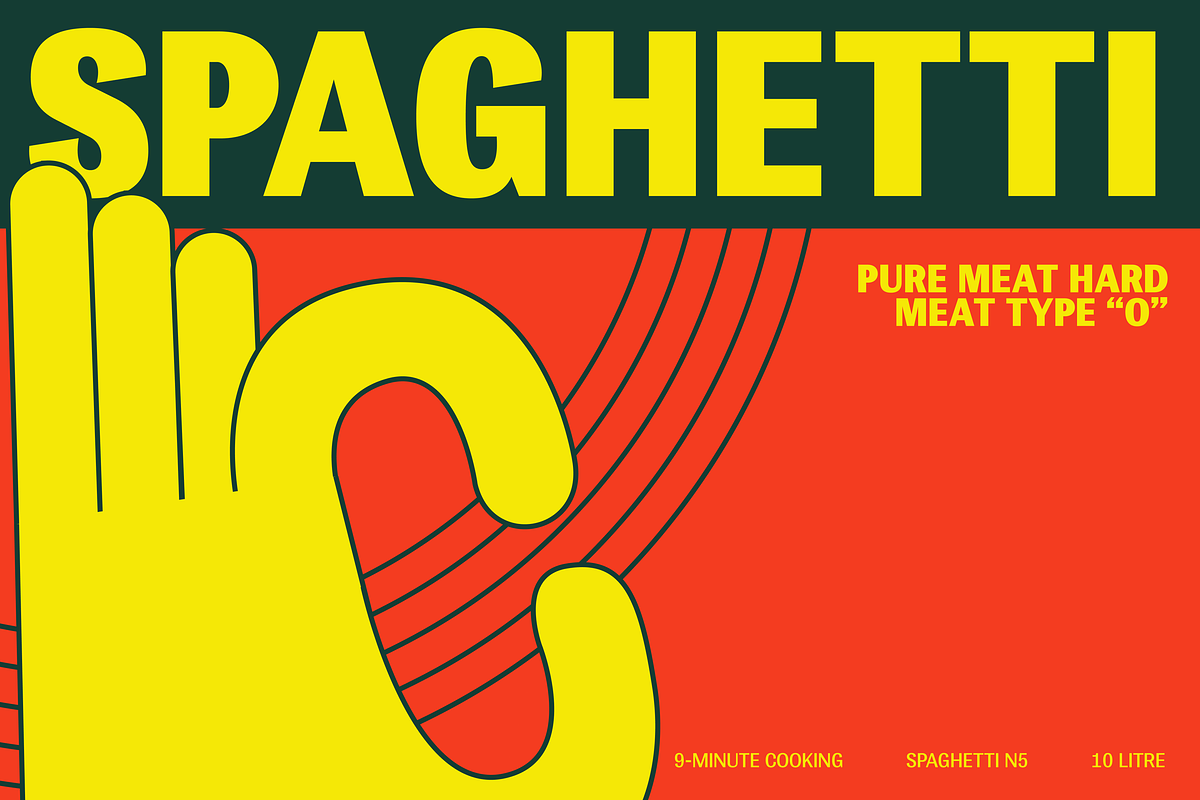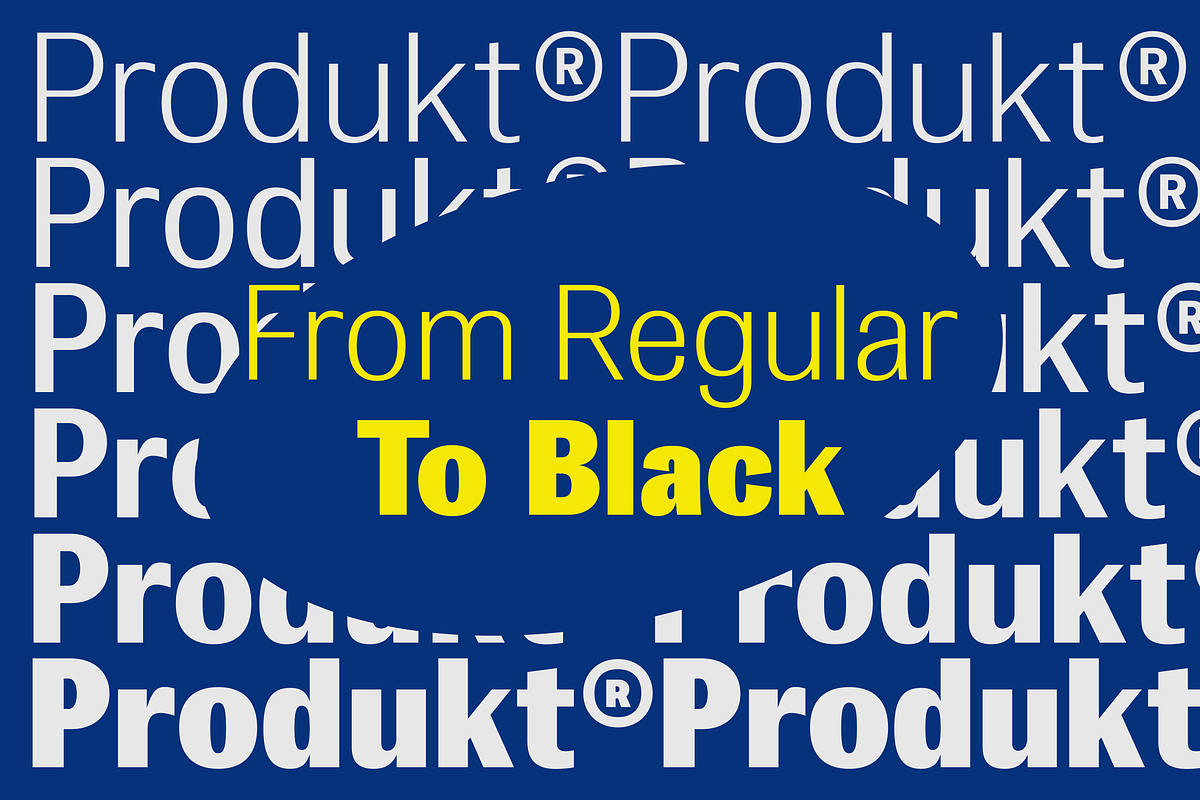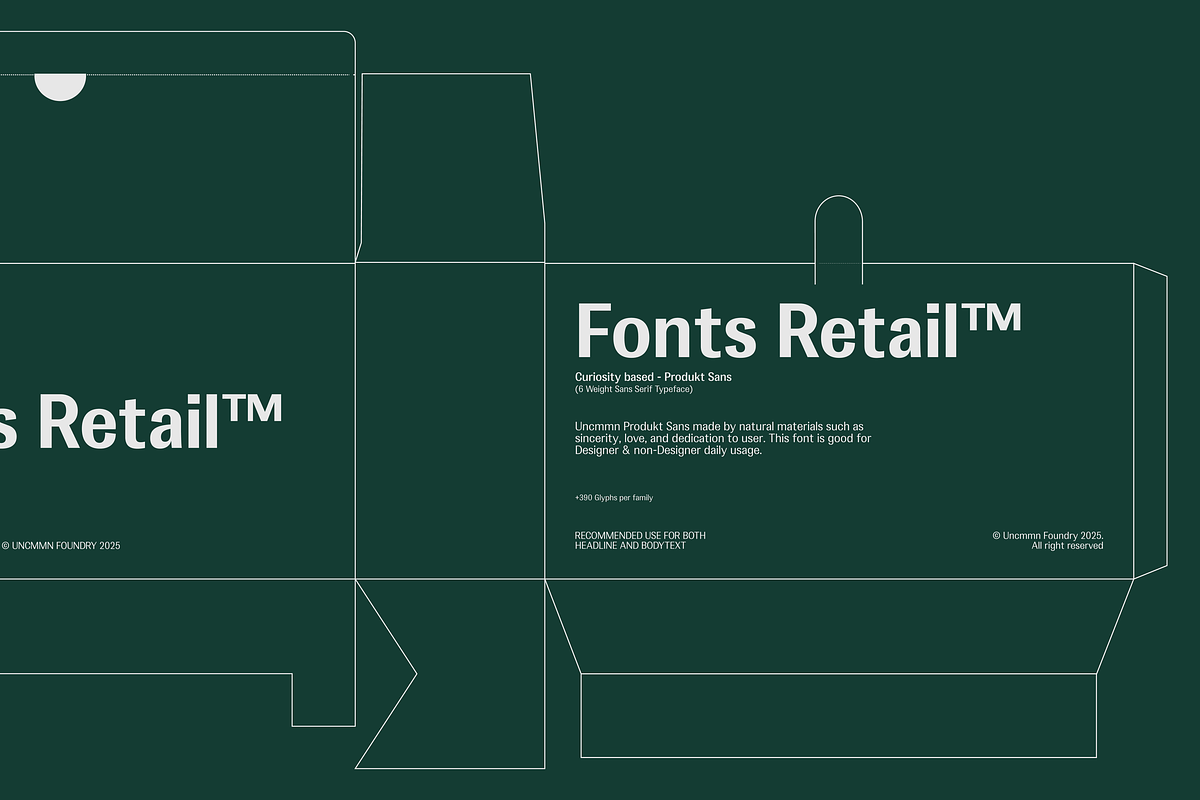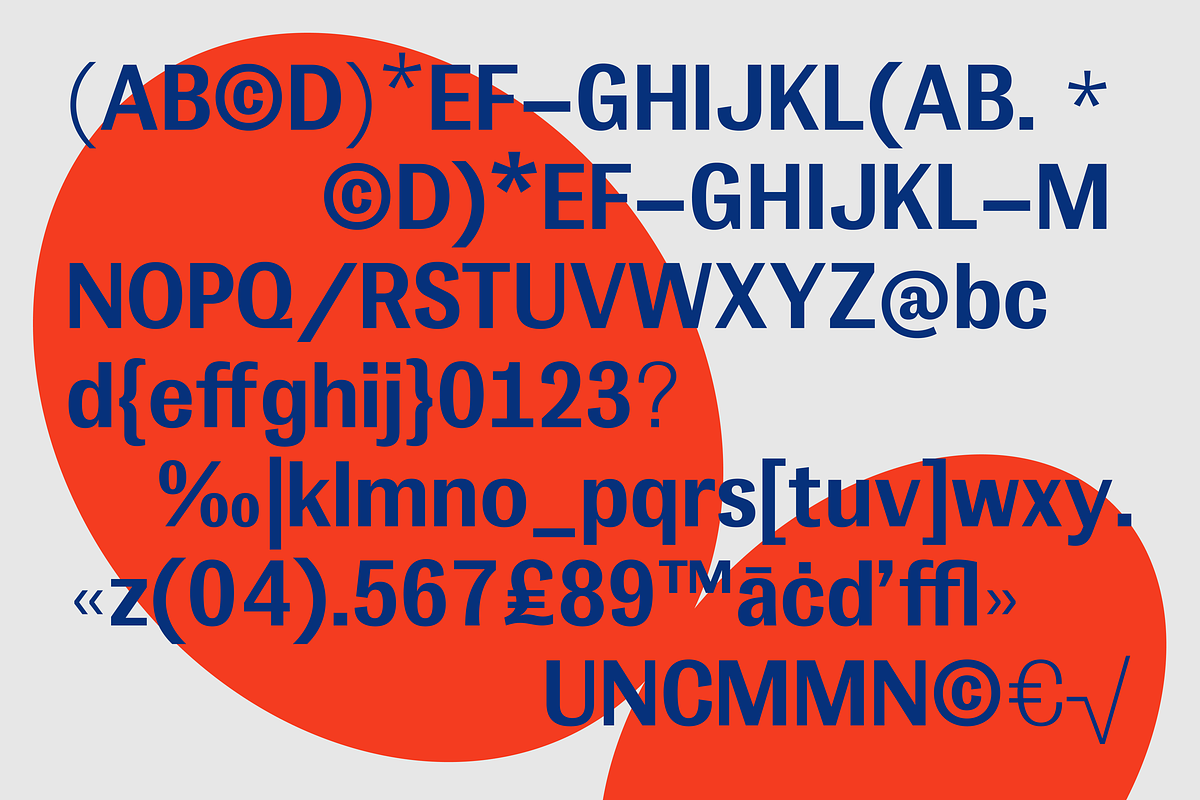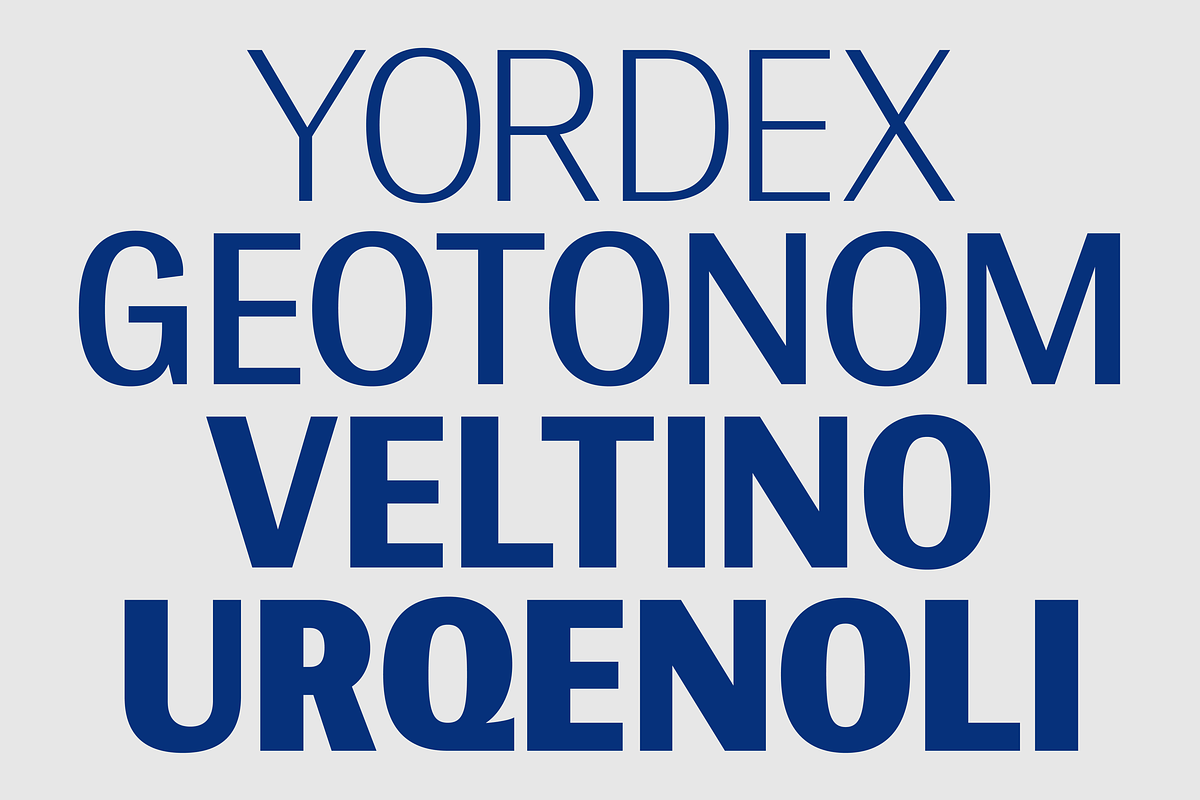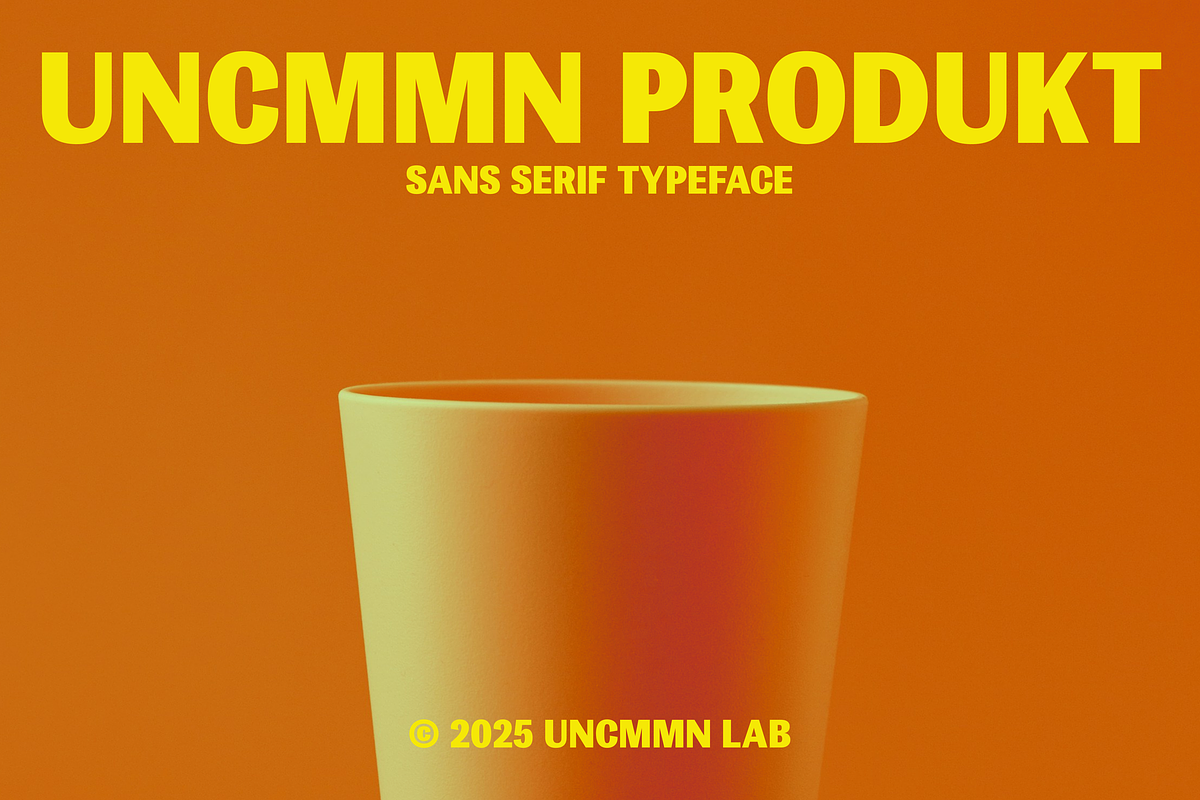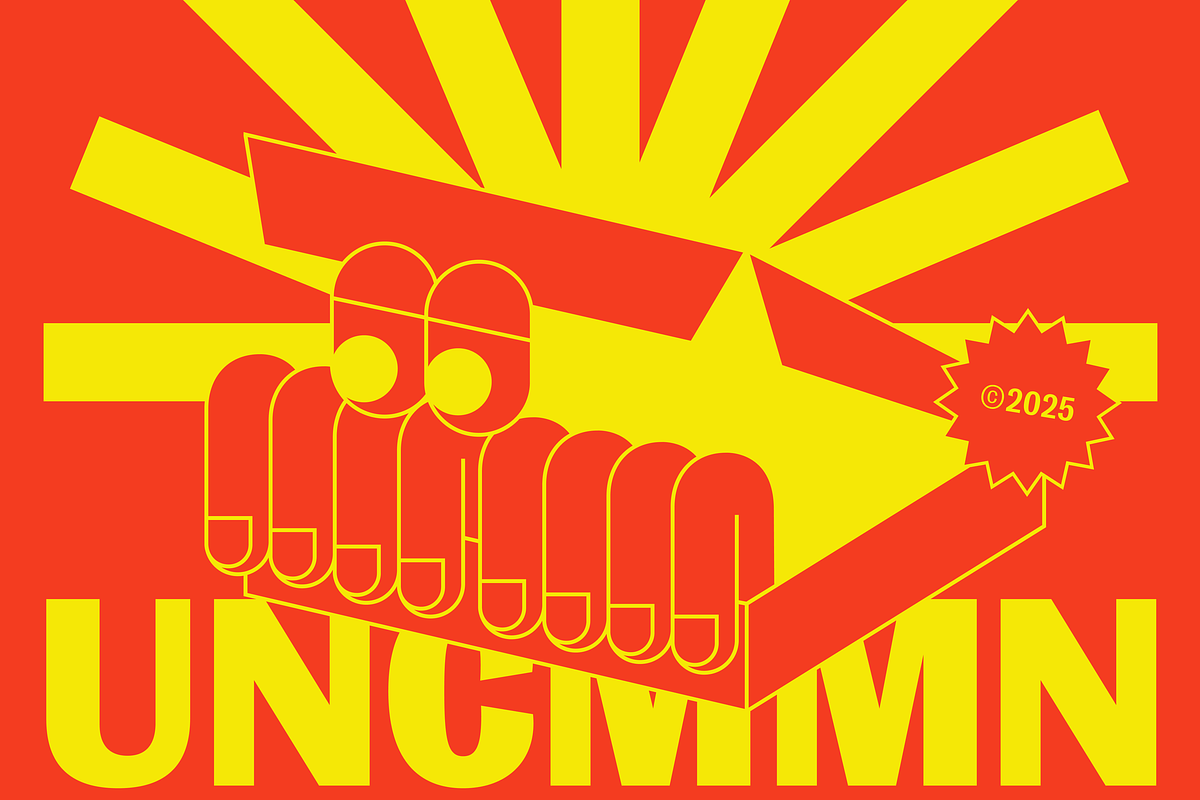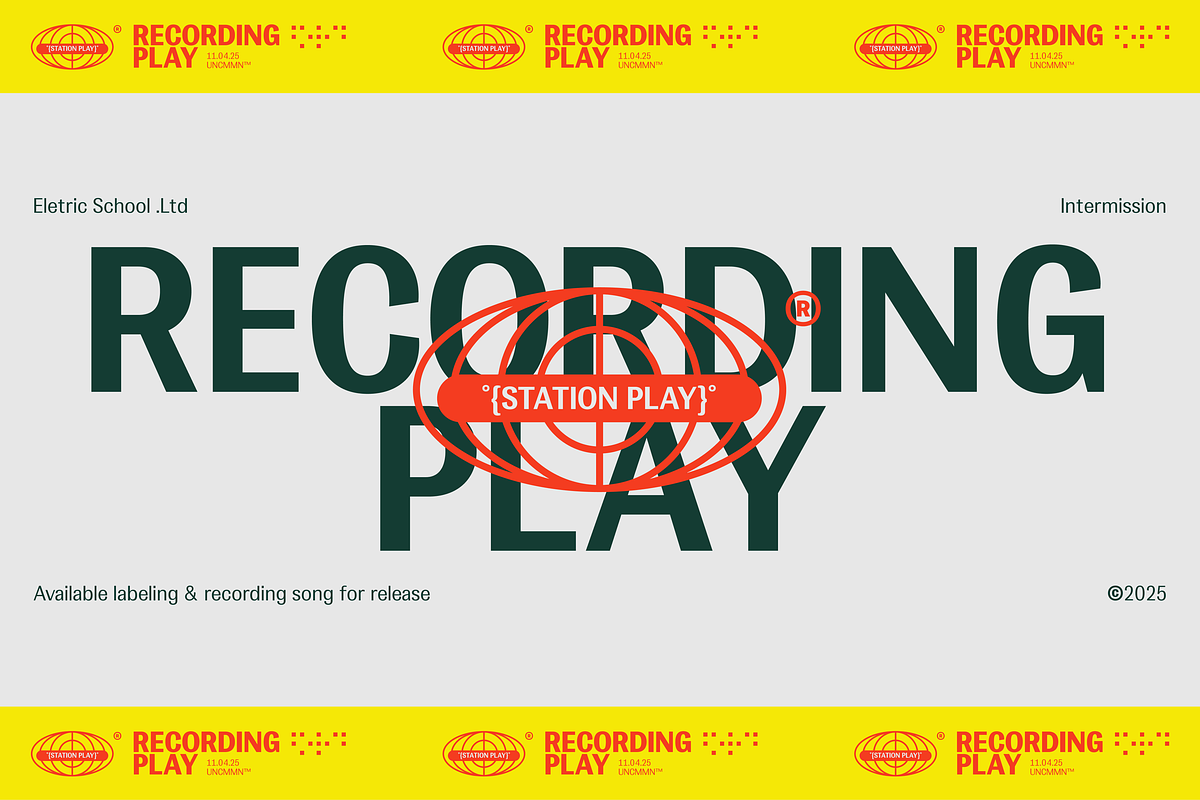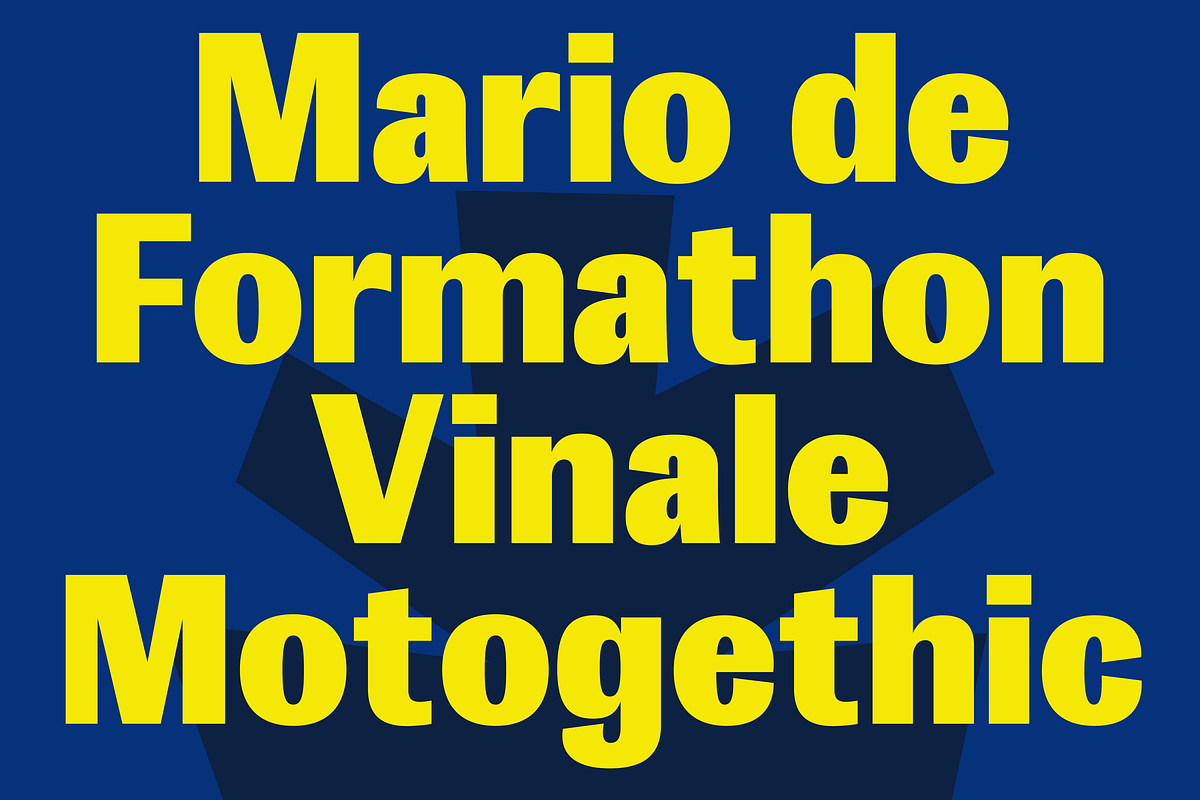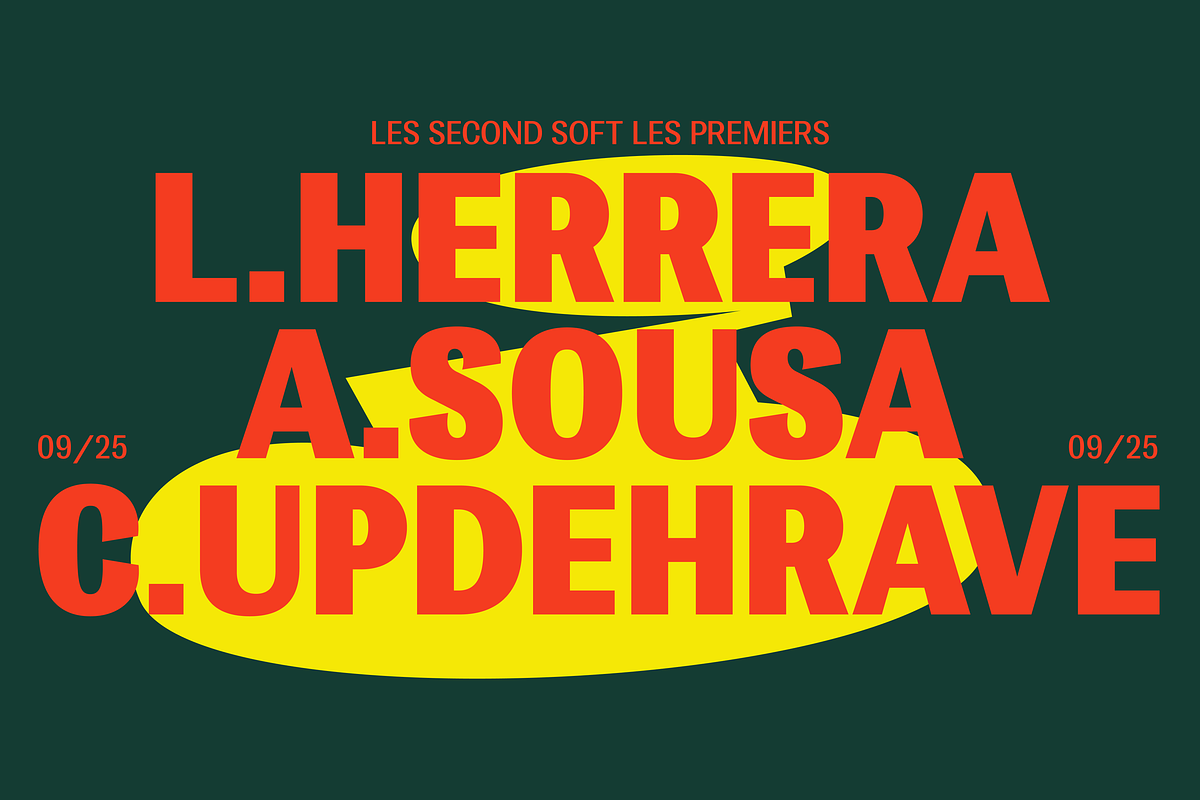
Uncmmn Produkt - 6 style Sans Serif
UNCMMN Produkt Sans Serif
UNCMMN Produkt font presents a thick, dense, and straightforward character that emphasizes the impression of strength and assertiveness. With a clean geometric structure and rigid letterforms, this font reflects a modern and industrial style. Each letter appears like a construction block-strong, stable, and no-nonsense-making it ideal for headlines, visual identities, or designs that require a loud and bold visual statement.
Intrinsically, the font has a low stroke contrast with consistent thickness from edge to edge, reinforcing its simple yet impactful grotesque sans-serif feel. The straight terminals and tight proportions between letters give a sense of compactness and efficiency. The combination of straight lines and minimalist curves emphasizes its functionalist attitude, as if this font was created to speak boldly without ornamentation. UNCMMN Produkt is a typeface that doesn't try to please-it demands attention.